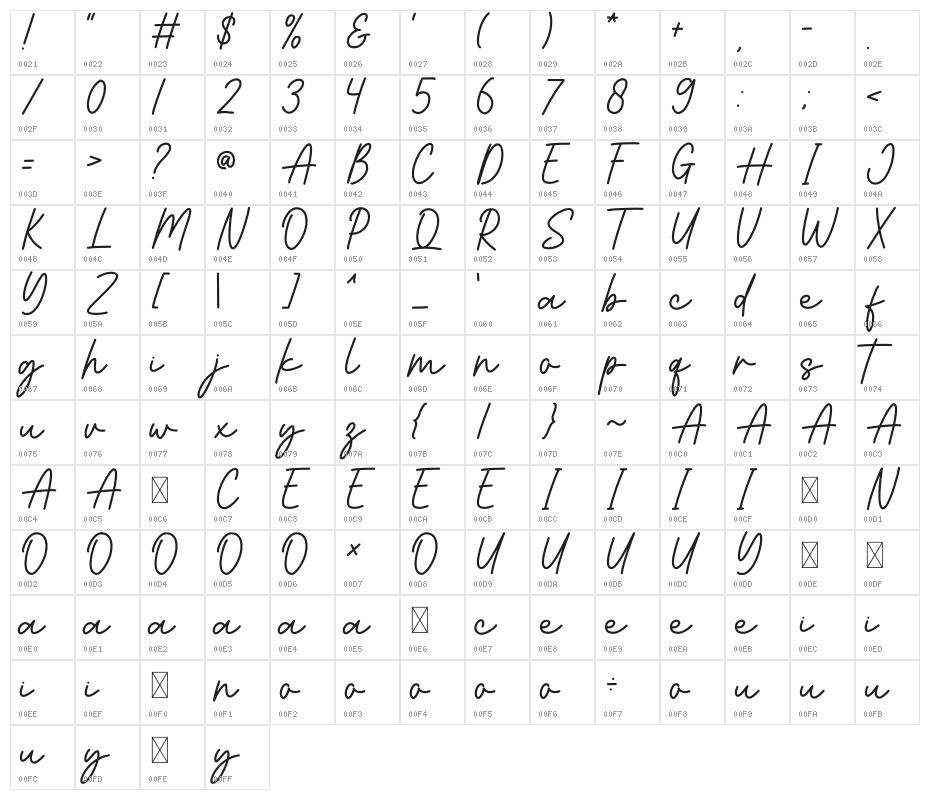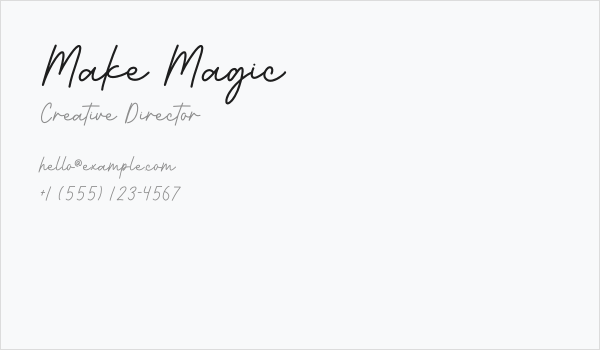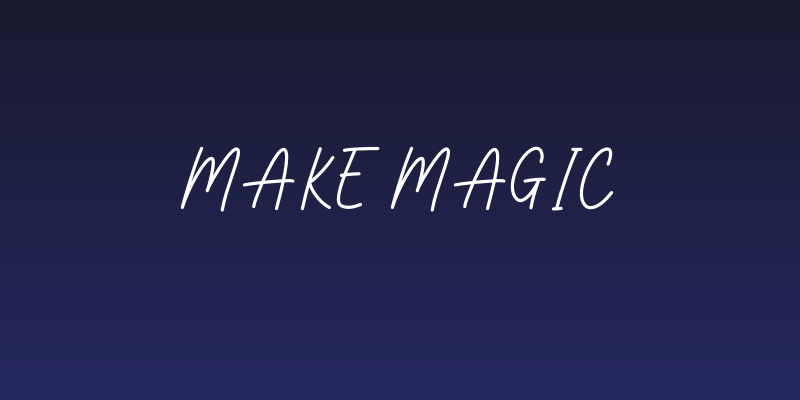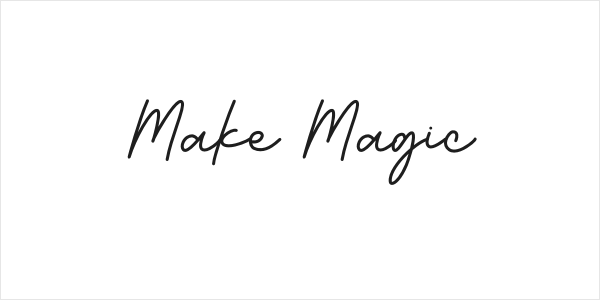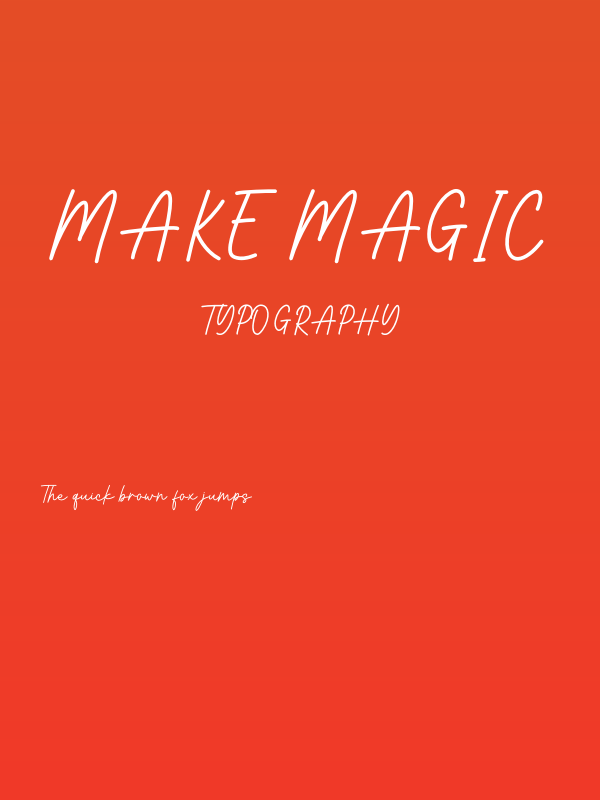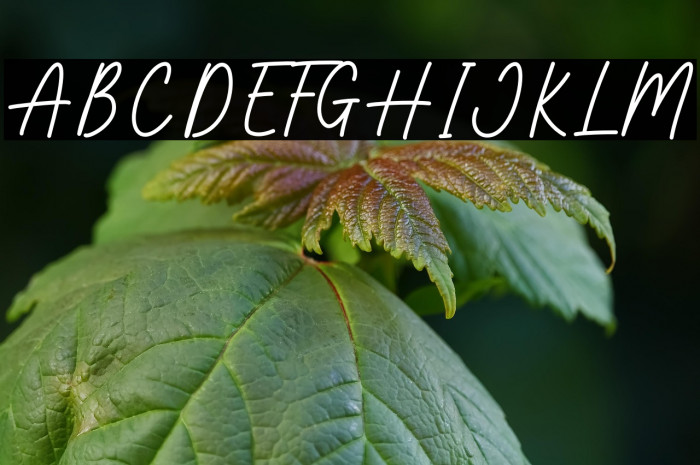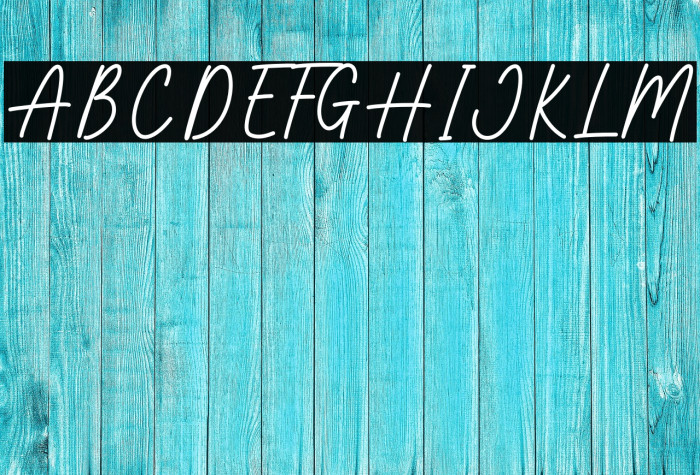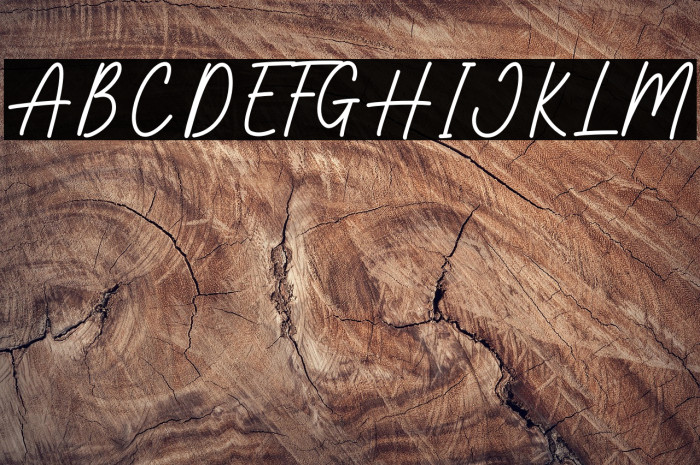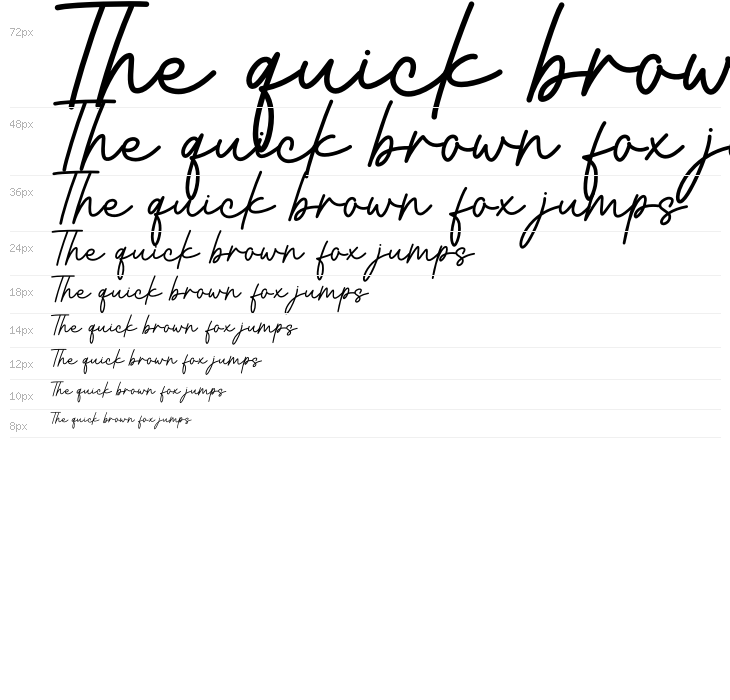
Make Magic Font
Make Magic Description
This font exudes a casual and playful handwritten style, characterized by its fluid and continuous strokes. The letters are slightly slanted, giving it a dynamic and lively appearance. The uppercase letters maintain a consistent height, while the lowercase letters exhibit a charming irregularity, enhancing its informal feel. The numerals and special characters follow the same whimsical style, ensuring a cohesive look across all glyphs. The overall design is approachable and friendly, making it suitable for projects that require a personal touch.
| Use Case | Logos, Headlines, Informal text |
| Proposed Projects | Ideal for greeting cards, personal invitations, social media graphics, and informal branding projects. |